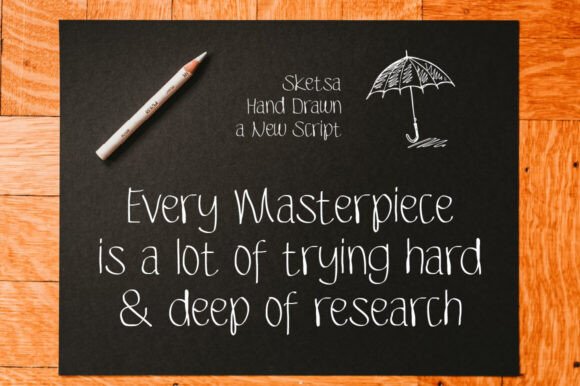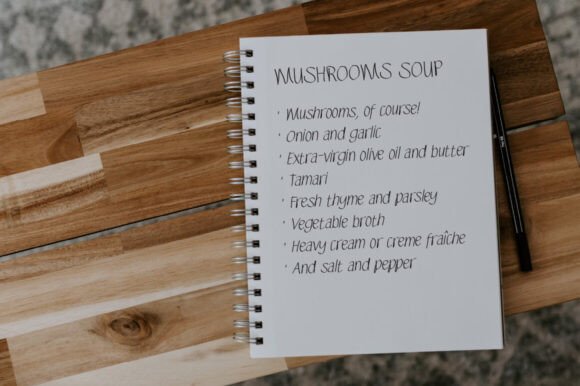
Introduction to Sketsa Hand Drawn Font
Have you ever found yourself scribbling down a rough draft of an idea on a piece of paper, only to realize that the imperfections and quirks of your handwriting bring a certain charm to the page? This is precisely the kind of organic, high-quality feel that Sketsa Hand Drawn Font aims to capture in digital form.
For designers looking to add a personal touch to their creative projects, this script handwriting font is a valuable resource. With its bold and delicate strokes, Sketsa Hand Drawn Font seamlessly blends natural and quote-worthy styles, making it perfect for branding, invitations, and expressive typography.
What sets Sketsa Hand Drawn Font apart is its ability to evoke the same emotions as authentic handwriting. Whether you’re working on a design project that requires a free download or simply need a design resource with a transparent background, this font is sure to bring a touch of warmth and personality to your work.
Key Features of Sketsa Hand Drawn Font
- High-quality, hand-drawn design perfect for creative projects, making it a valuable design resource.
- Features a unique, handwritten style with subtle imperfections, adding a touch of personality to any design.
Honest Review: Sketsa Hand Drawn Font
As a designer, I’m always on the lookout for high-quality design resources that can elevate my creative projects. Recently, I stumbled upon the Sketsa Hand Drawn Font, and I must say, it’s a great addition to my design arsenal.
Here are some of the things that work well with this font: ✨
- Unique and creative design that adds a personal touch to any project
However, there are some limitations to keep in mind: ⚠️
- The design may not be as refined as some paid fonts, which could be a drawback for some designers
Overall, I’m impressed with the Sketsa Hand Drawn Font. It’s a great design resource for creative projects, and its free download option makes it an excellent choice for designers on a budget. With some limitations in mind, I would definitely recommend it to fellow designers looking for a unique and high-quality font.
Sketsa Hand Drawn Font is perfect for creating invitations, social media graphics, and marketing materials. To get the most out of it, use it in conjunction with other design elements, such as illustrations and graphics. Experiment with different font sizes and styles to create a unique and eye-catching design.